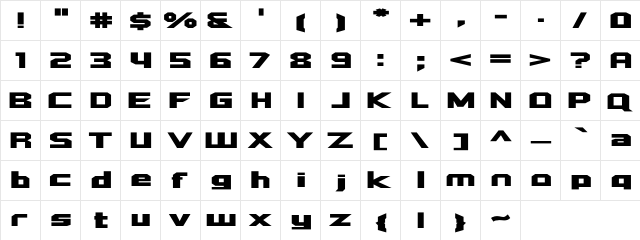
LHF Quadrex Regular Font Preview
LHF Quadrex Regular
LHF Quadrex Regular Font Details
| Foundry | Chuck Davis for Letterhead Fonts |
Design Context for LHF Quadrex Typeface
LHF Quadrex is a composed and adaptable typeface that performs quietly and consistently across a wide range of design contexts.